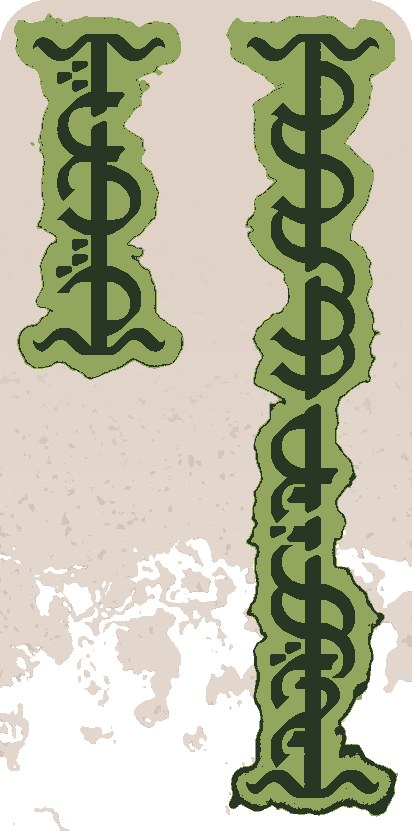
• Rotate 90° clockwise then mirror on the vertical axis for proper orientation.
Use 1234567890-= to space the glyphs.
./, for start/end of word, {/} for start/end of phrase, | for divider.
Capitals have trimmed arches to allow for ligation.
g variants on p and q (and G on P, Q, R, and S).